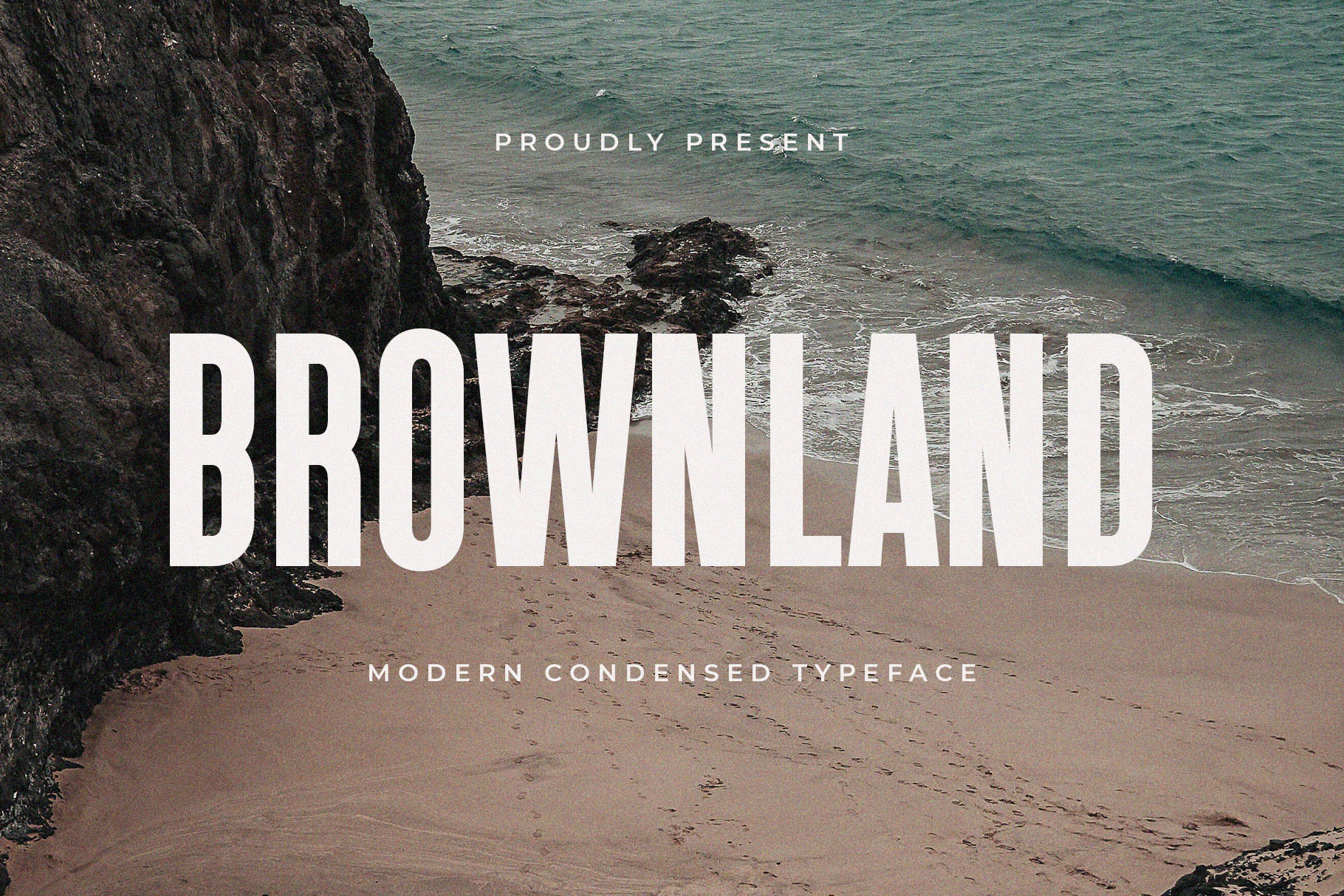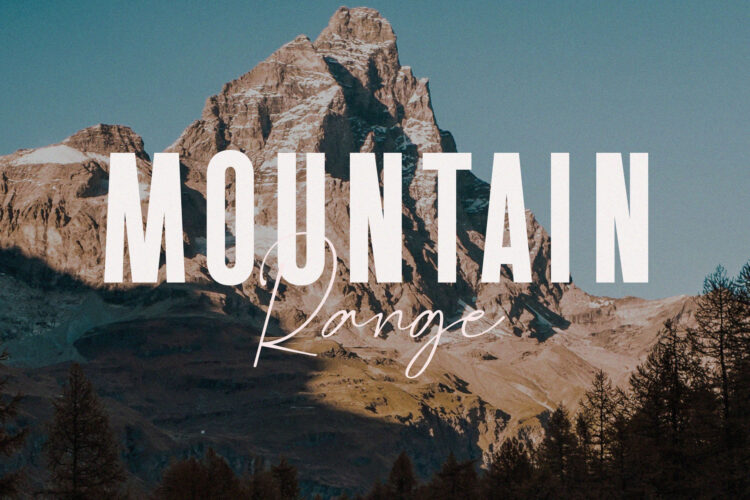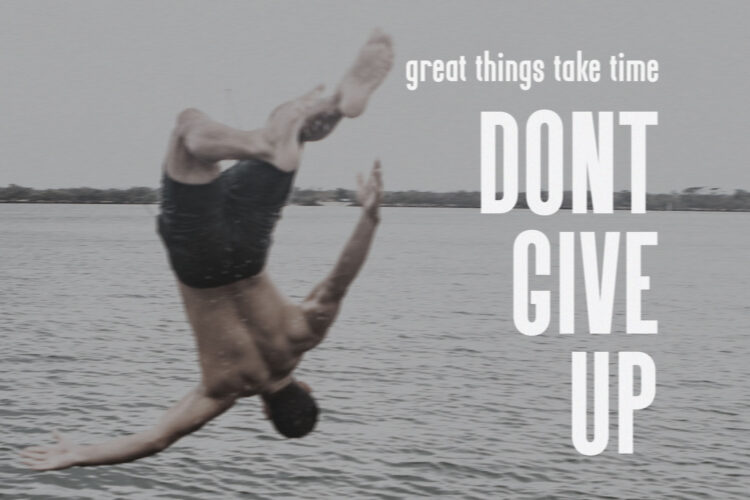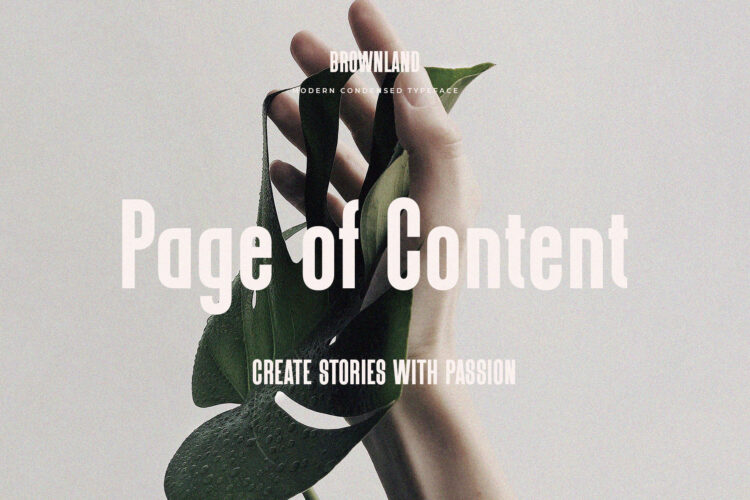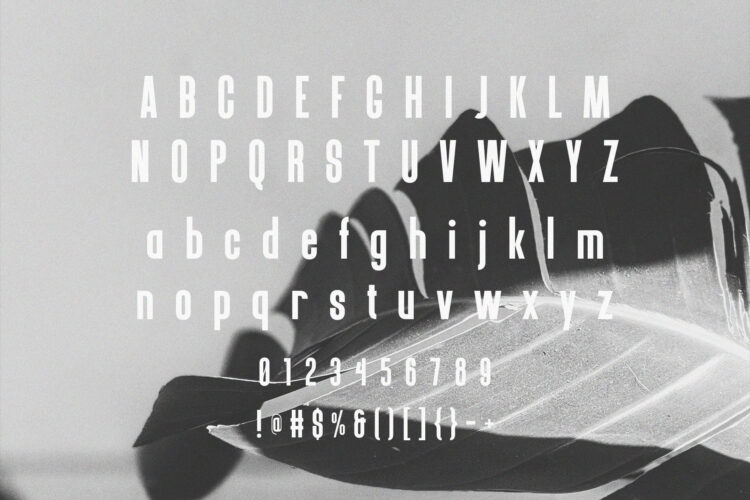
Introducing Brownland Modern Condensed Sans Serif.
Brownland is a modern and classy typeface, best used as a display for headings, logos, branding, magazines, product packaging and invitations. Brownland come with clean lines and smooth curves give any project an extra touch of class.
Brownland – Modern Condensed Sans Serif